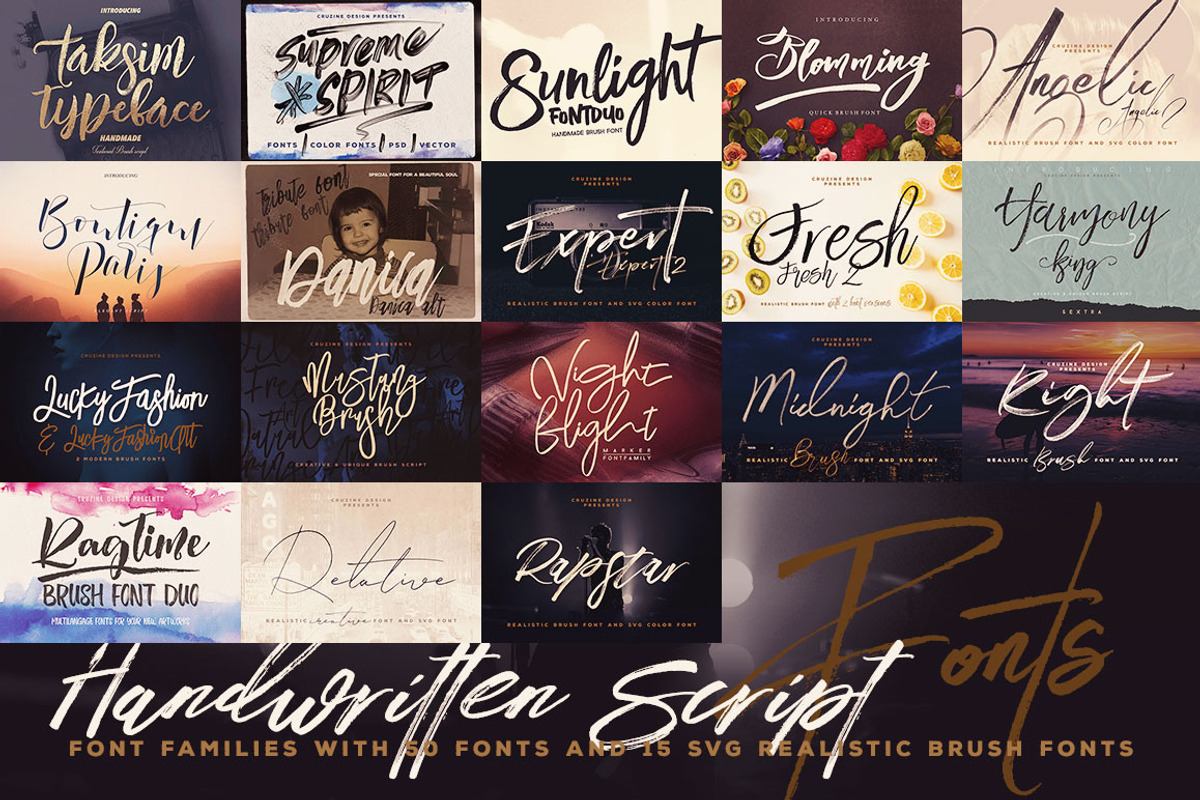
These fonts mimic the fluid motion and unique personality of real handwriting, making them ideal for wedding invitations, branding, greeting cards, social media graphics, product packaging, and heartfelt quotes. Whether you're going for a romantic, playful, or modern handwritten look, there's a script style to match your creative vision.
By choosing Handwritten Script Fonts Free Download, you're gaining access to a collection of beautifully crafted typefaces that install effortlessly and work seamlessly across all major design software. Enhance your typography with authentic charm, stylish swashes, and an emotional flair that connects with your audience.